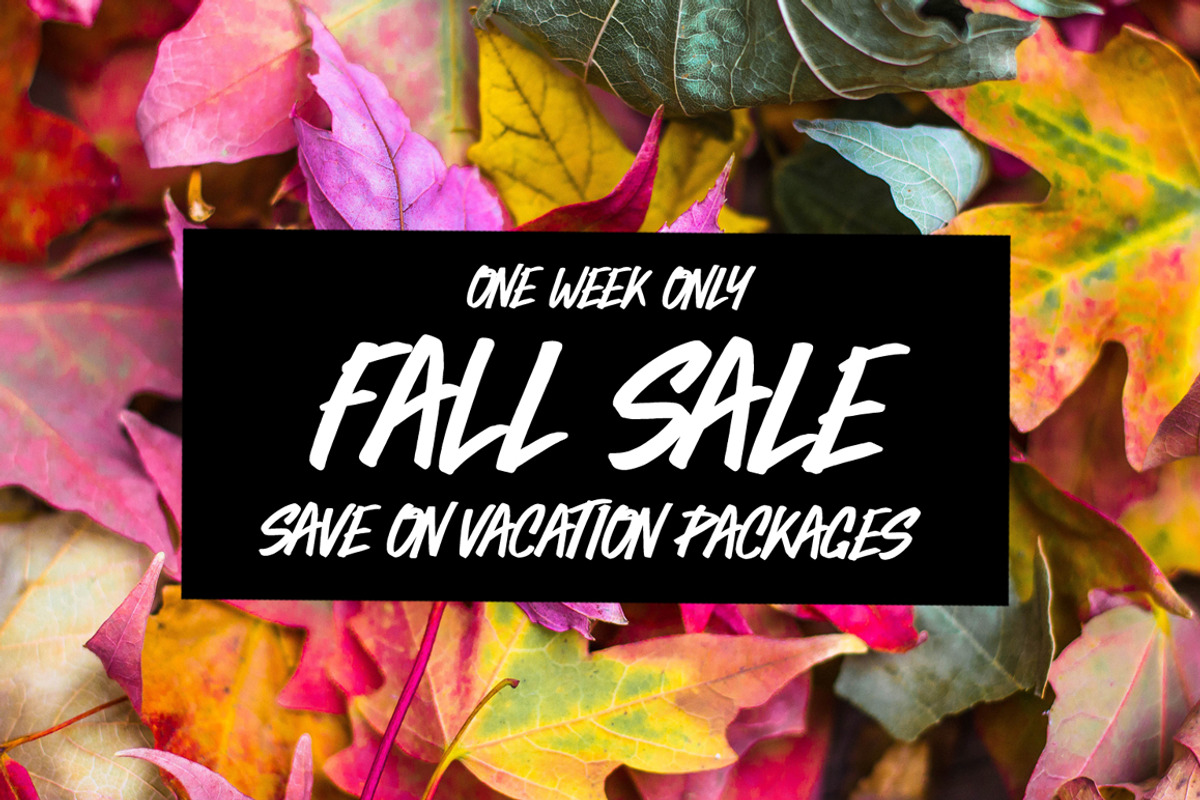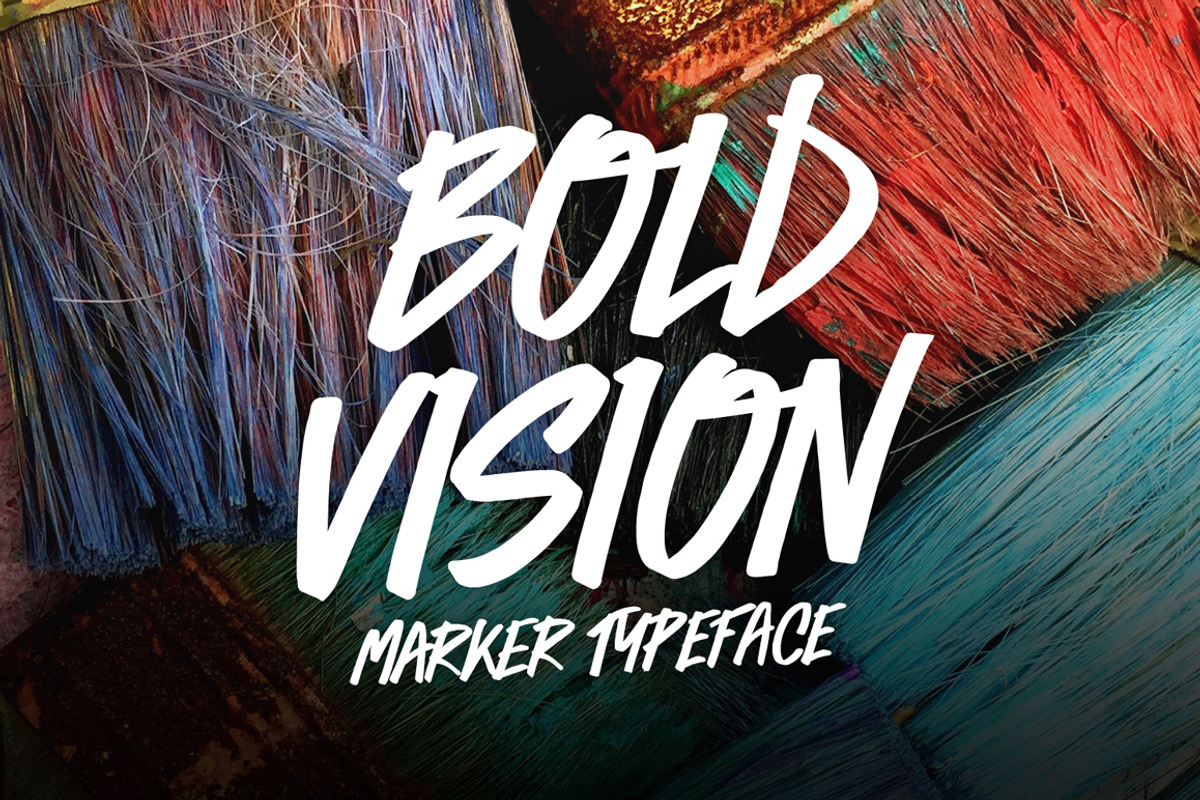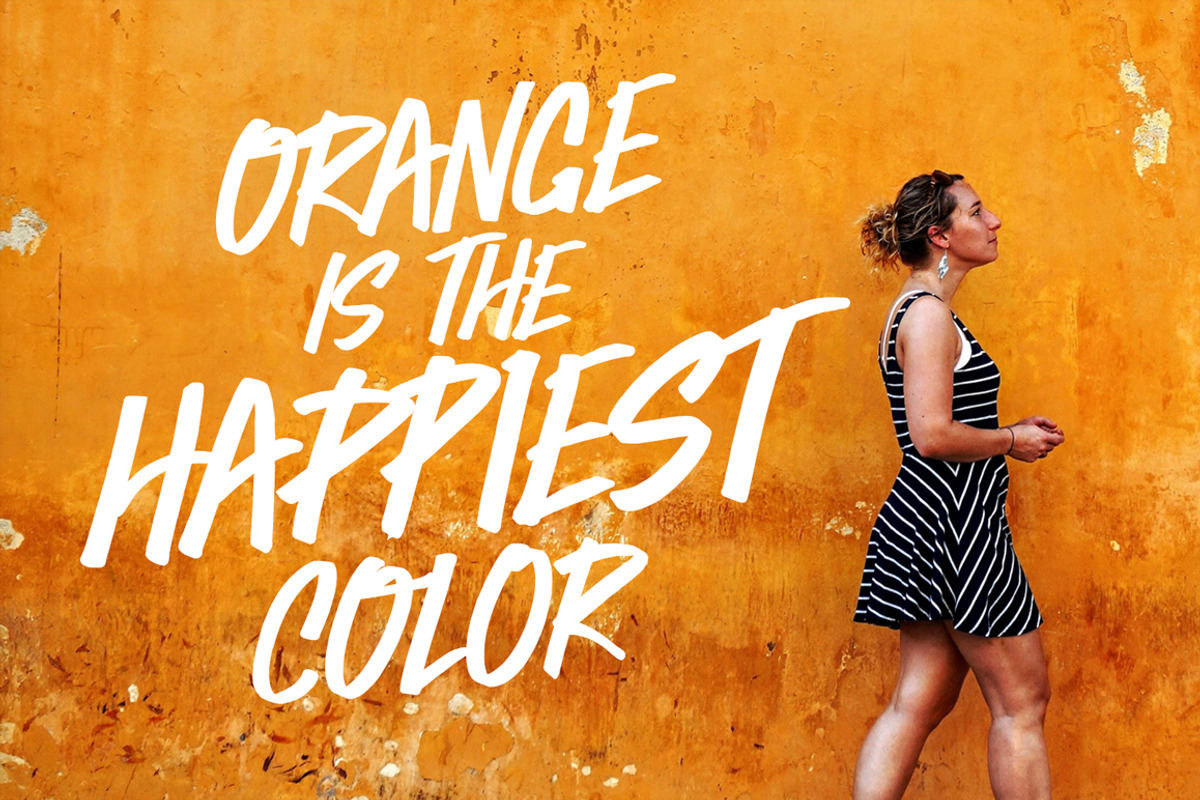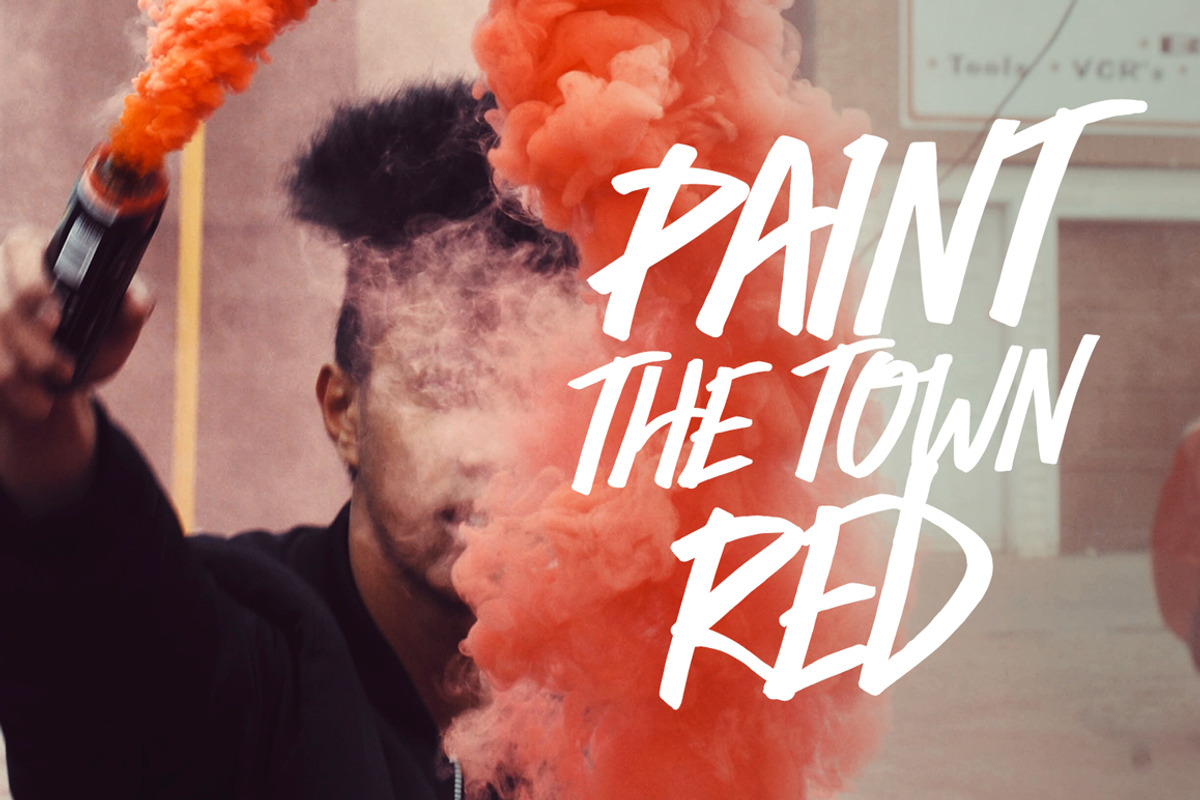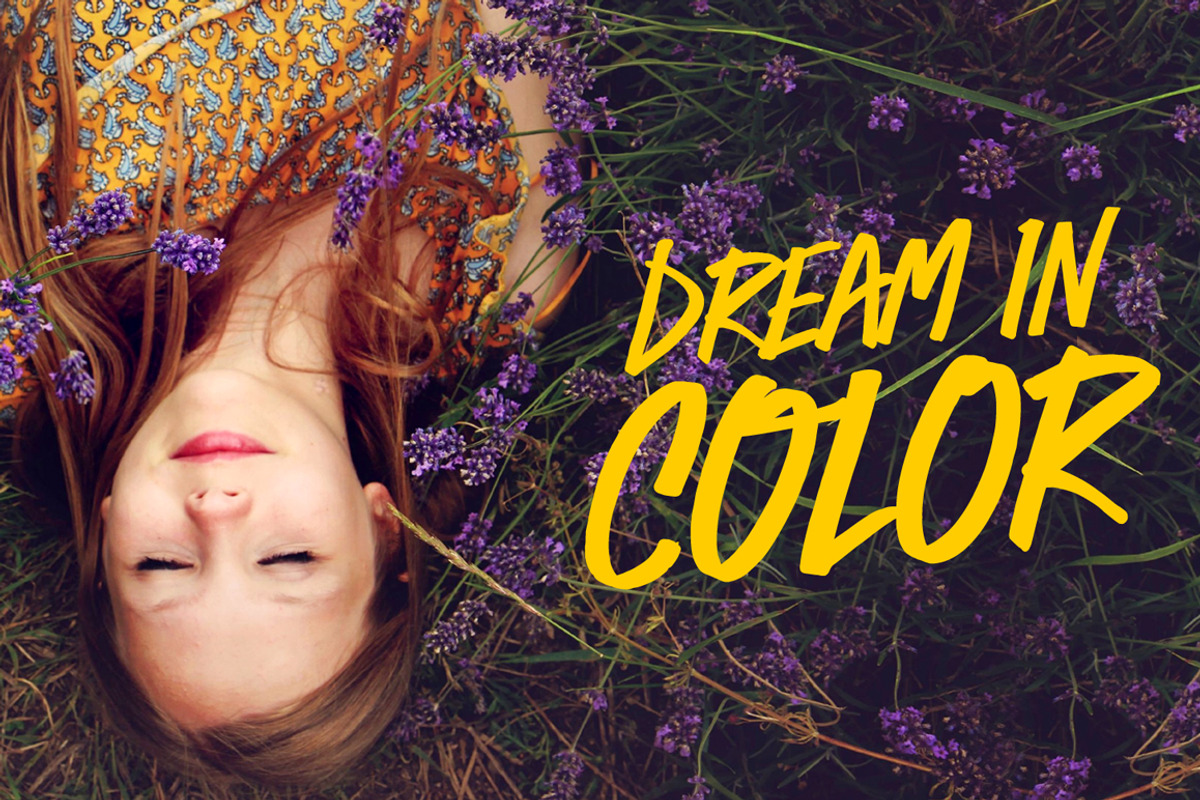
Bold Vision
Introducing BOLD VISION. As the title suggests, this font was created with boldness in mind. It is built to grab peoples attention, and add nice character and flair to your design. Everything in the font was hand drawn.
BOLD VISION works especially well for advertisements, logos, quotes, image overlays, apparel and web banners.
-Alternates Don't like the look of a certain character? Don't want to repeat the same character twice? Each of the main 26 characters has an alternate. Just alternate between the uppercase and lowercase letters for variation.
-Language Support I included quite a few extra characters to support many additional languages.